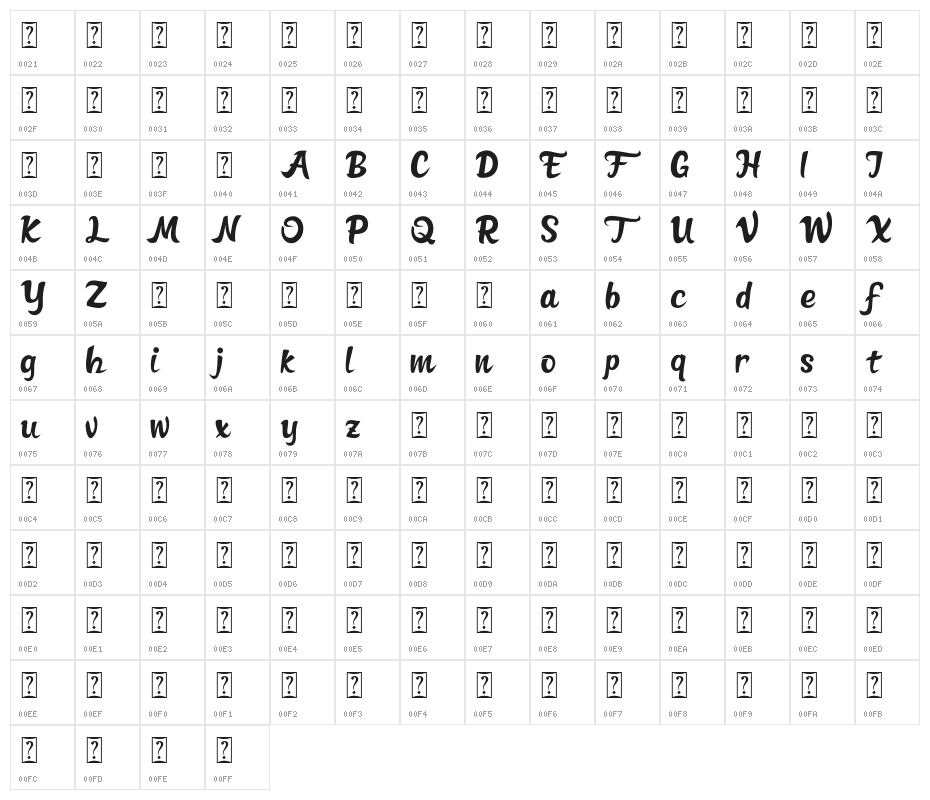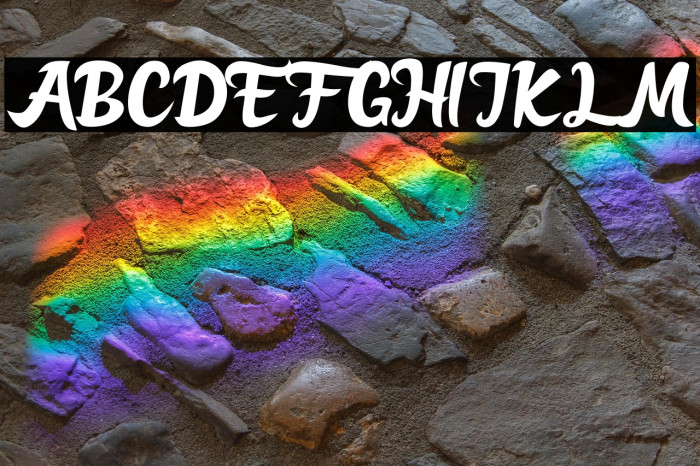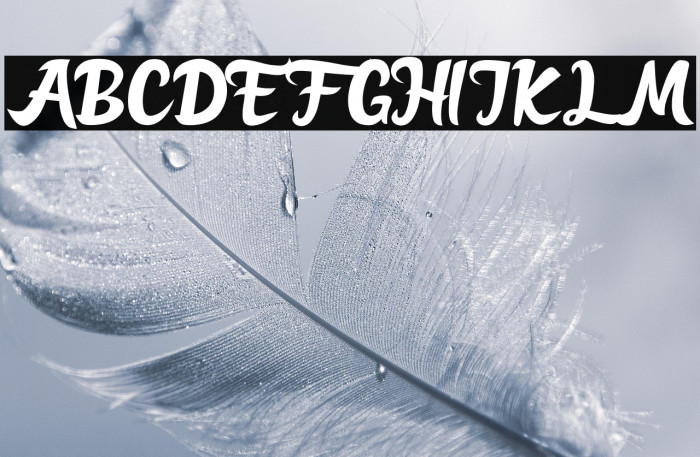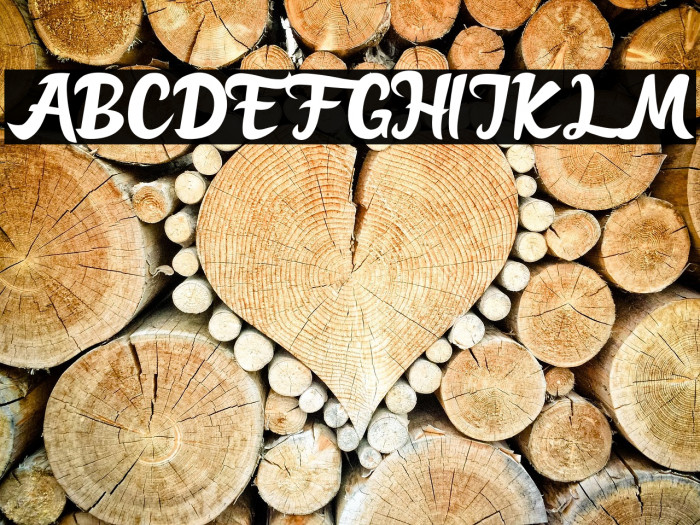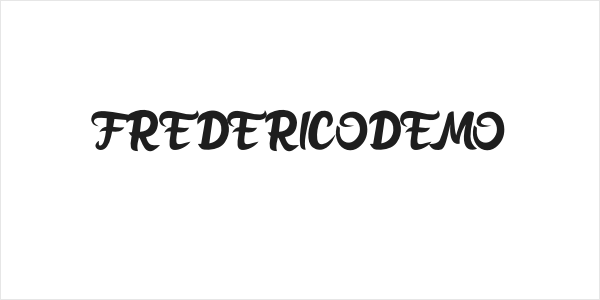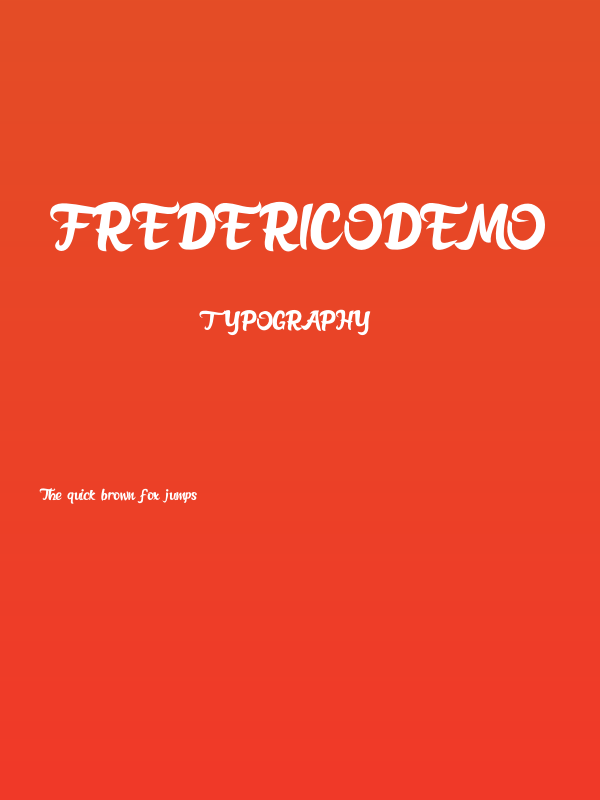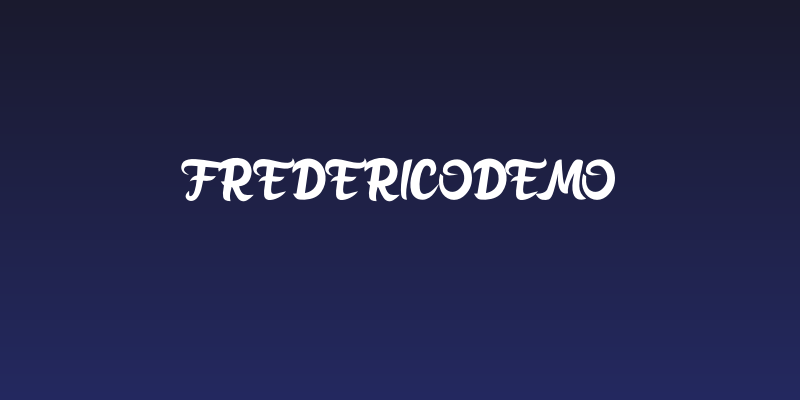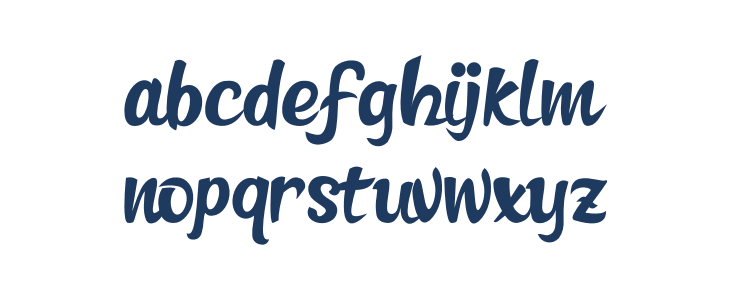
FREDERICODEMO Font
FREDERICODEMO Description
This font features a bold and expressive script style with a dynamic flow, characterized by its thick strokes and smooth curves. The uppercase letters are slightly slanted, adding a sense of movement and elegance. The lowercase letters maintain a consistent style, with some characters like 'g' and 'j' having distinctive loops. The overall appearance is bold and impactful, making it suitable for attention-grabbing designs. The font includes a full set of uppercase and lowercase letters, but lacks numerical and special character support, as indicated by the placeholder symbols.
| Proposed Projects | Ideal for branding, logos, posters, and invitations where a bold and stylish script is desired. |